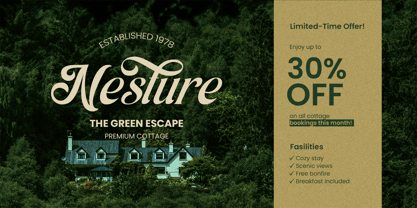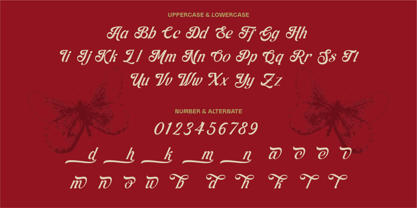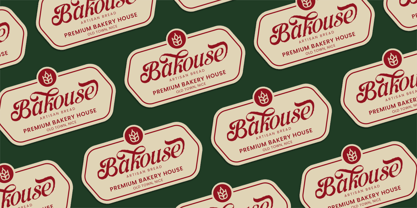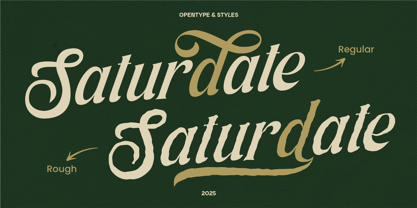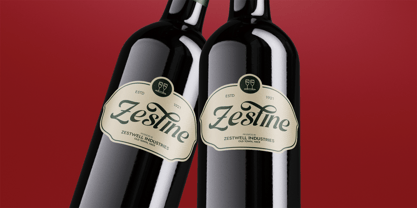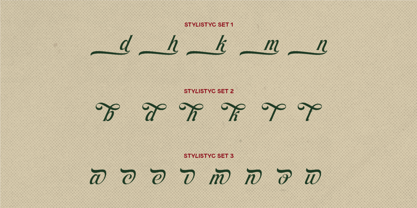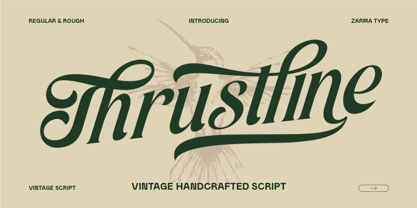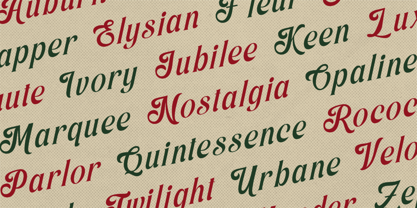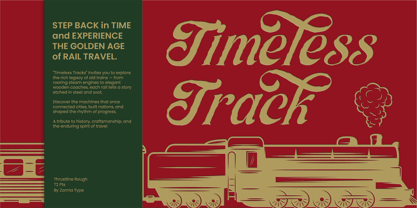
Thrustline
por Azzam Ridhamalik
La familia tipográfica Thrustline fue diseñada por Azzam Ridhamalik y publicada por Azzam Ridhamalik. Thrustline contiene 2 estilos y opciones de paquete familiar. Más información sobre esta familia
Thrustline – Vintage Script Font is a bold and stylish retro typeface inspired by the golden era of sign painting and handcrafted lettering. Its expressive strokes, smooth swashes, and dynamic ligatures bring a nostalgic yet refined touch to modern design projects. From vintage wine labels to artisan bakery branding, Thrustline offers a unique blend of timeless elegance and handcrafted charm that elevates your visuals with personality and flair.
Perfect for wine branding, retro packaging, logos, apparel, poster design, and lifestyle graphics, Thrustline includes two font styles (Regular & Rough), alternate characters, swashes, ligatures, full punctuation, and multilingual support. With its versatile features and distinctive look, this font is a perfect choice for designers looking to make their work stand out with a touch of classic sophistication.